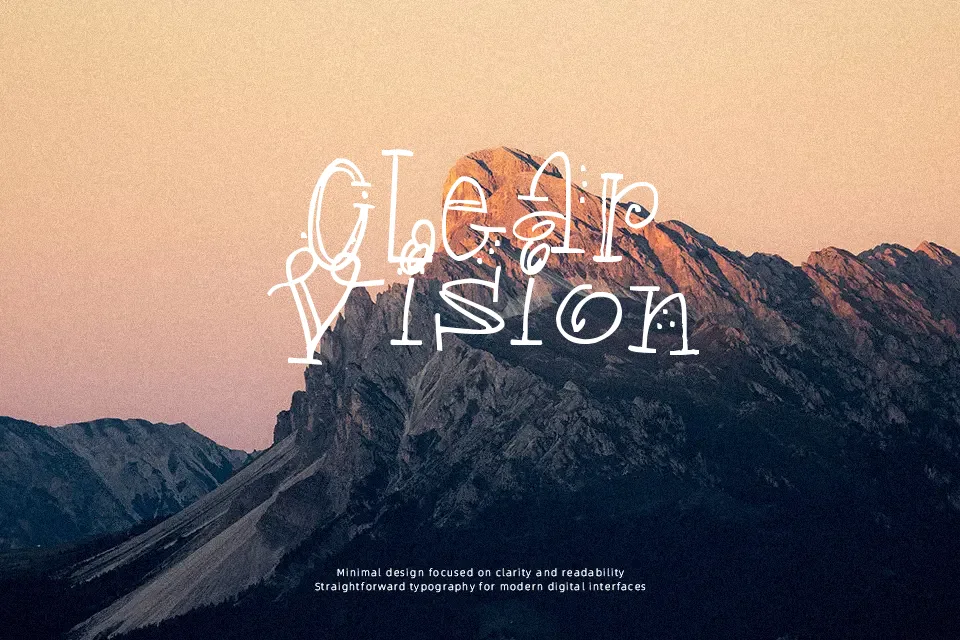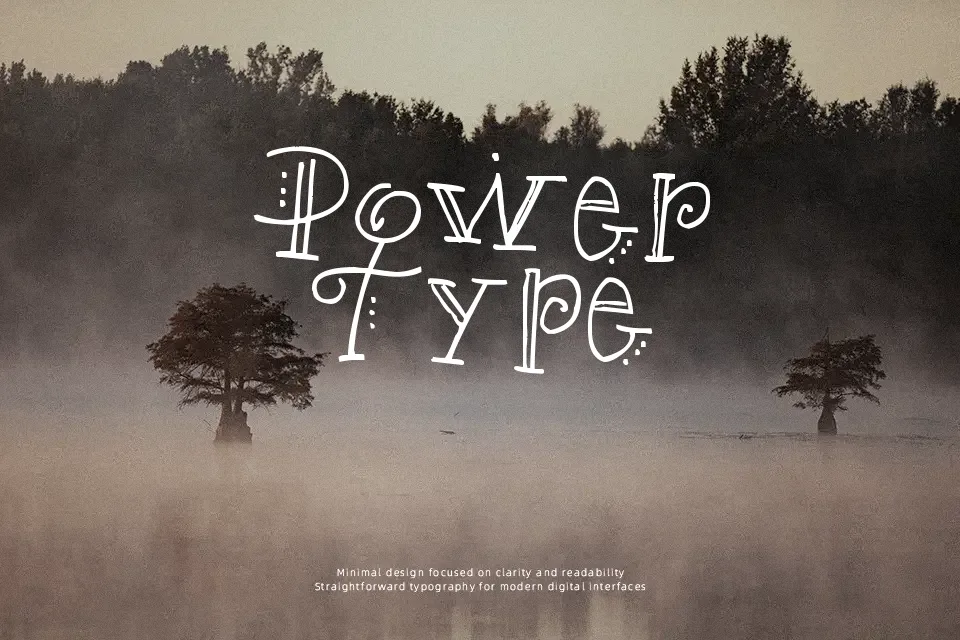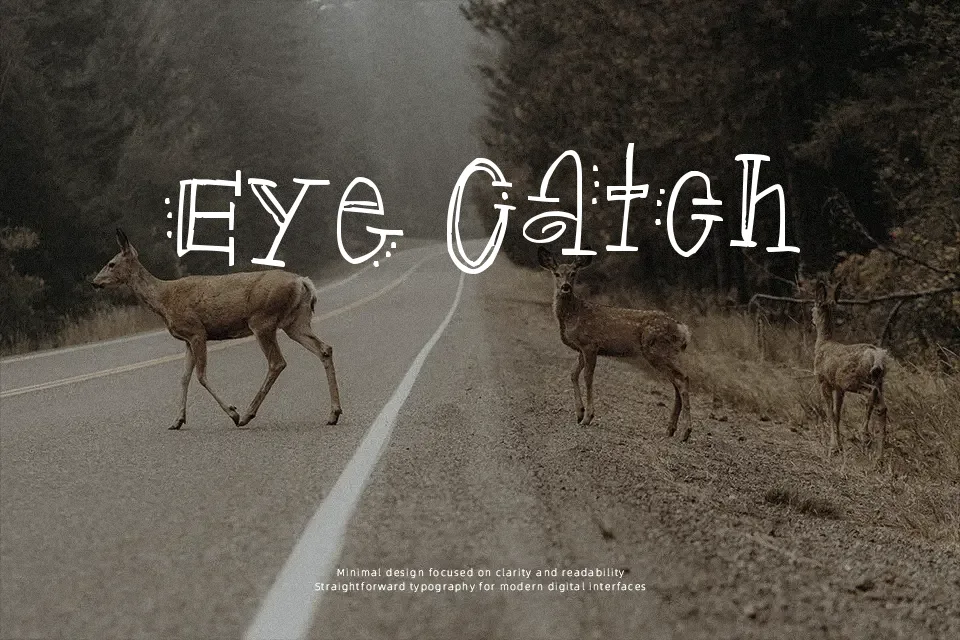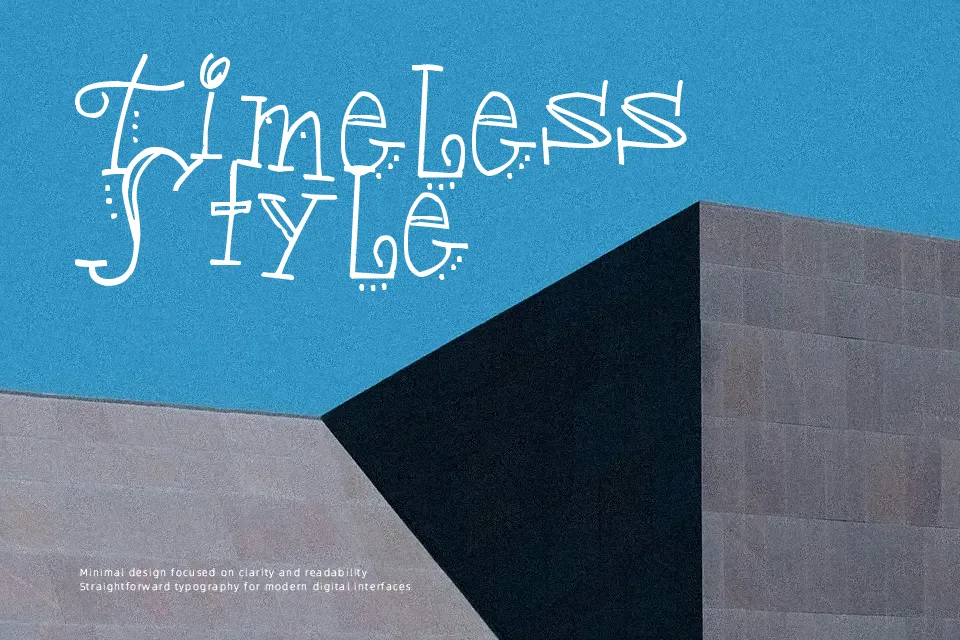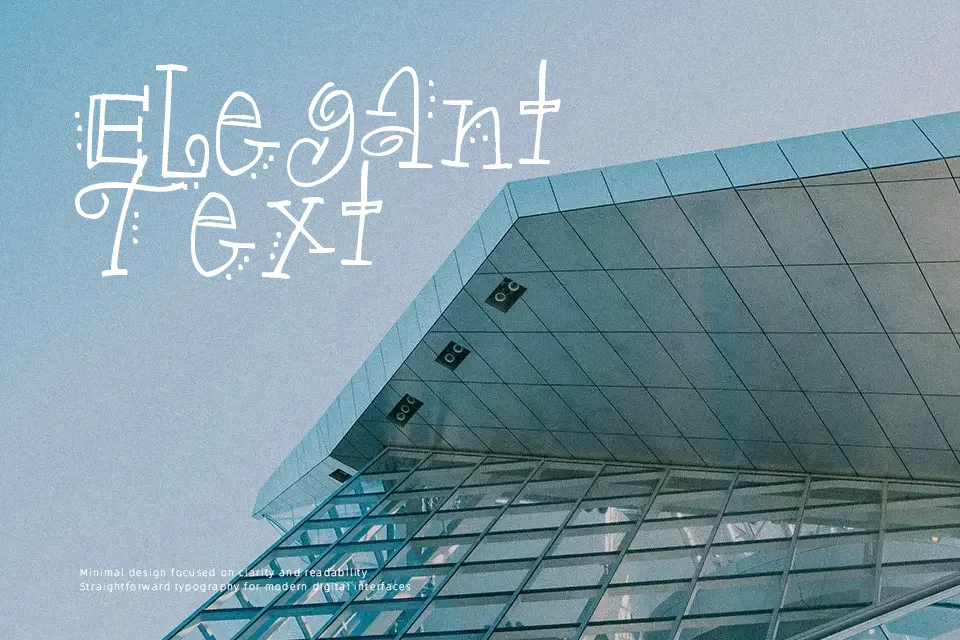
Truckle Font
Designed by Kelle McCarter
Truckle Font delivers an eccentric visual presentation built around exaggerated curls, curved terminal loops, and varied stroke weights. The letterforms exhibit irregular vertical proportions and open spacing that give titles an informal, hand-embellished aesthetic. At display scales, individual characters showcase distinct spiraling details that create immediate focal interest for boutique bakery branding, greeting cards, and festival banners. However, the dense ornamental swashes heavily compromise continuous readability in extended passages. Small text sizes cause adjacent loops to collide visually and blur legibility. Consequently, the design proves most effective when reserved strictly for short headlines and focal display applications.
Best For: children’s party invitations, whimsical storybook covers, boutique bakery signage, holiday greeting cards
Not Ideal For: long paragraph text, corporate legal documents, dense editorial layouts, mobile interface body copy
Perfect for headline, invitation, and kids, with a creative and decorative style.